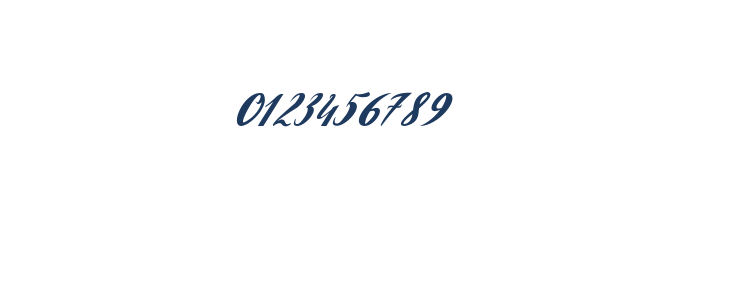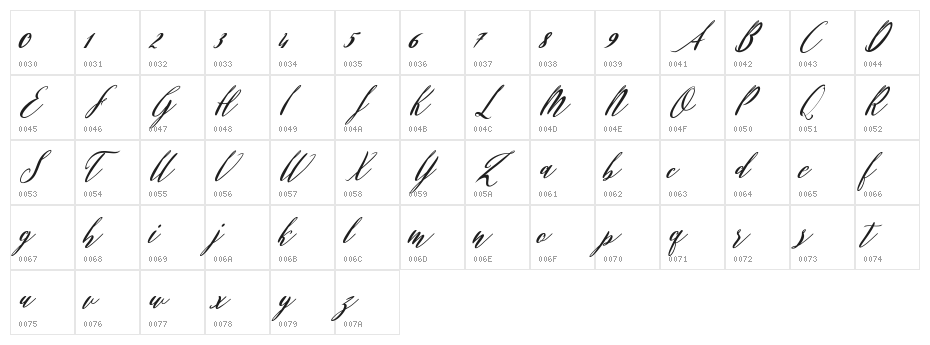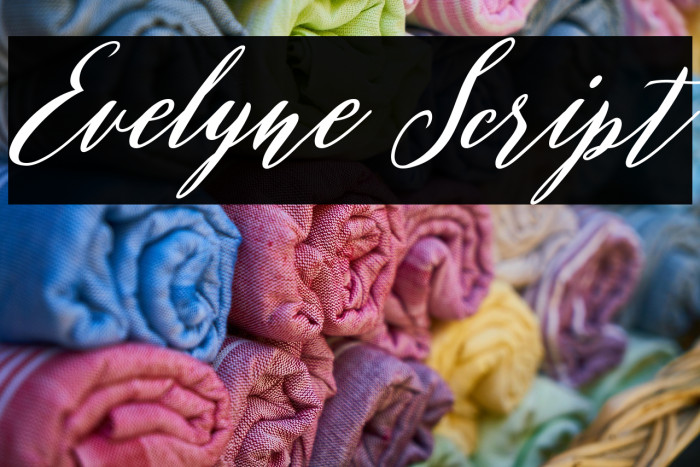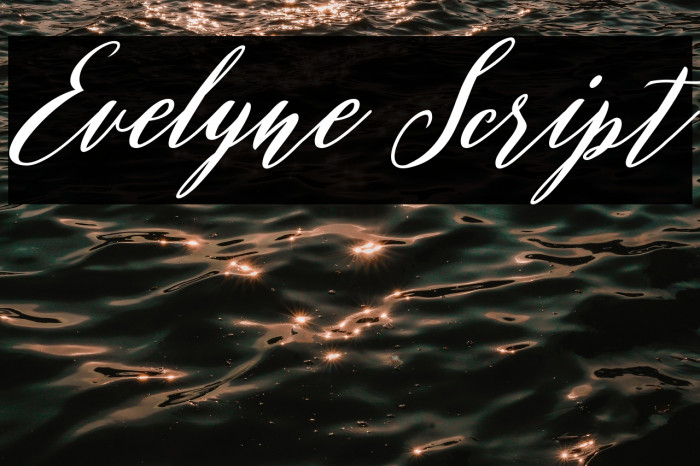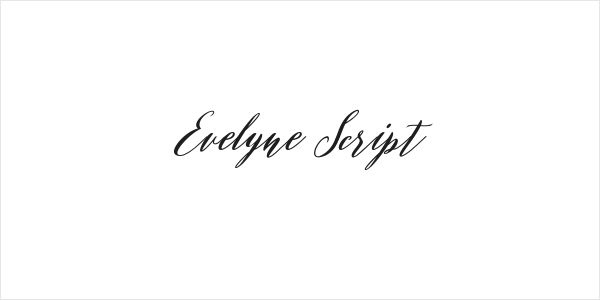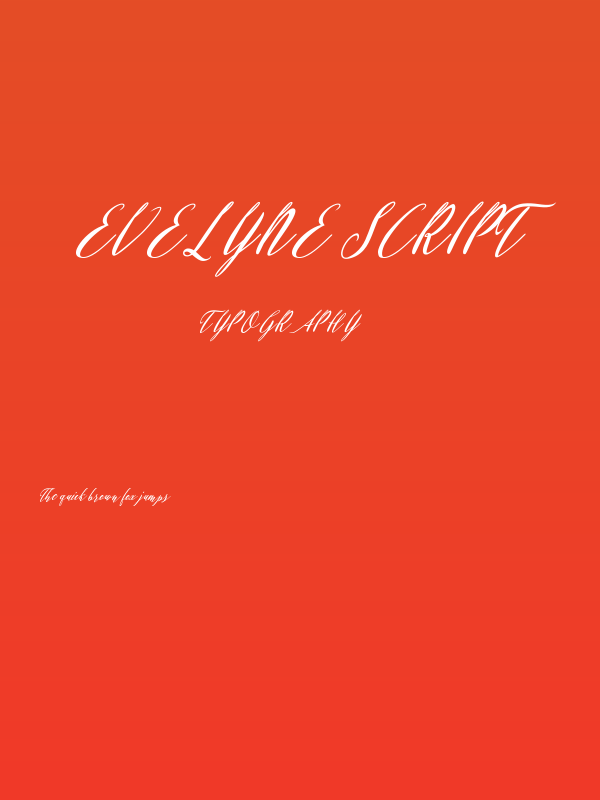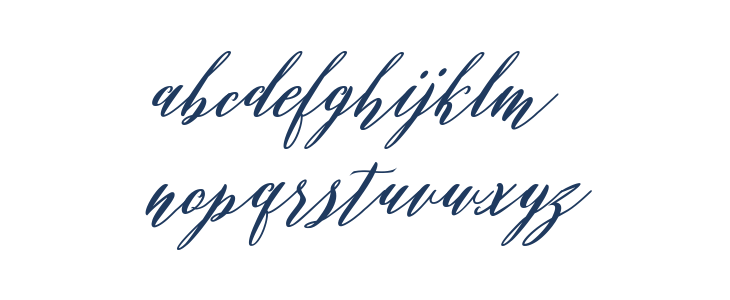
Evelyne Script Font
Evelyne Script Description
This elegant script font features fluid, cursive strokes that convey a sense of sophistication and grace. The letters are interconnected, creating a seamless flow that mimics natural handwriting. The uppercase letters are slightly more ornate, with flourishes that add a touch of drama, while the lowercase letters maintain a consistent rhythm and balance. The numbers and special characters are designed to match the overall style, ensuring a cohesive look. This font is perfect for projects that require a personal, artistic touch.
| Overall Style | Elegant, Artistic |
| Proposed Projects | Ideal for wedding invitations, greeting cards, branding, and elegant packaging. |